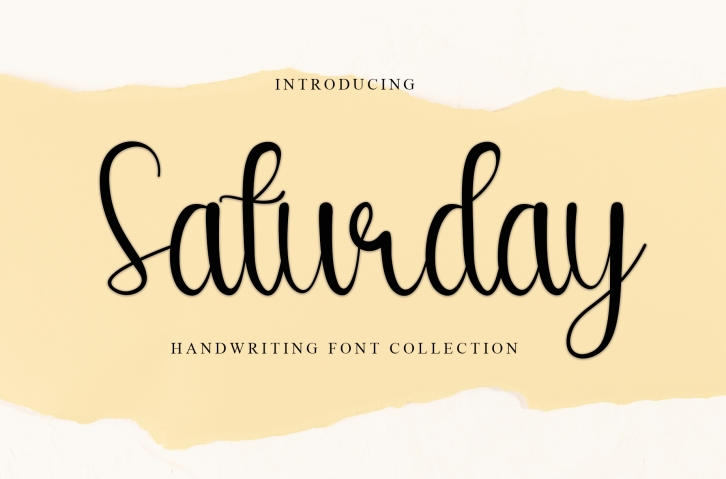
Saturday is a neat and beautiful handwritten font described by an elegant touch, perfect for your favorite projects. Fall in love with its incredibly distinct and timeless style, and use it to create spectacular designs!